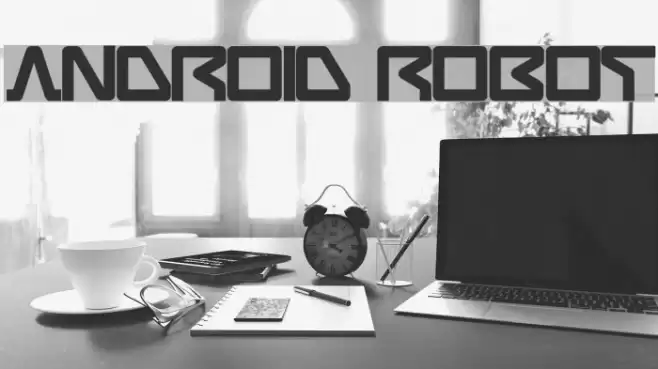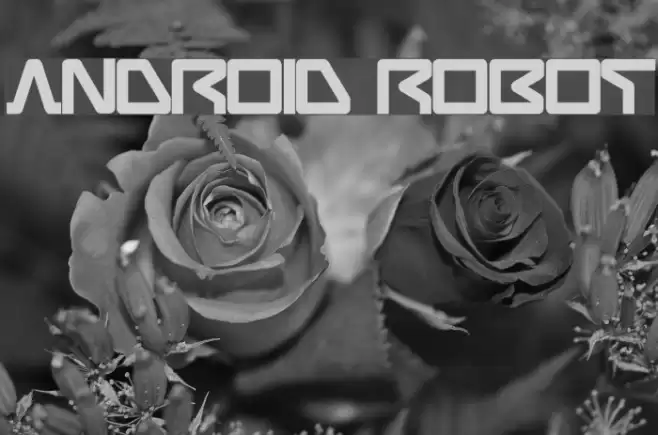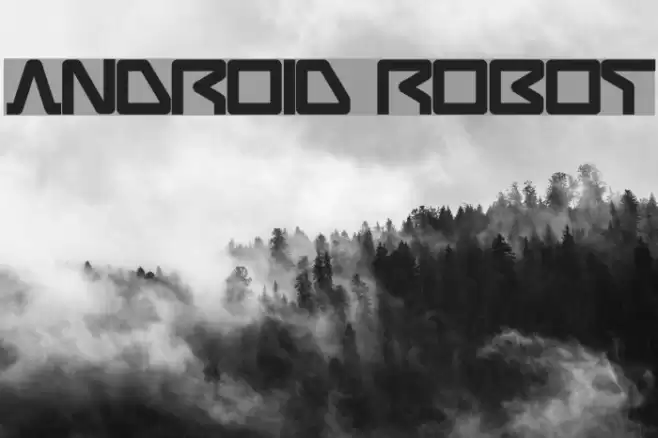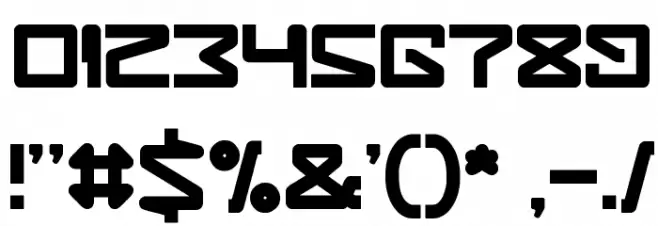
ANDROID ROBOT Font
ANDROID ROBOT Description
This font features a futuristic and robotic design, characterized by its bold and geometric structure. The characters are constructed with sharp angles and straight lines, giving it a mechanical and digital appearance. The uppercase and lowercase letters maintain a consistent style, with unique cuts and shapes that enhance its modern aesthetic. Numbers and special characters follow the same design principles, ensuring a cohesive look across all elements. The font's distinct style makes it ideal for projects that require a tech-savvy or sci-fi theme.
A bold, futuristic font with geometric and robotic elements from Uncategorized fonts.
- Proposed Projects: Ideal for technology branding, sci-fi movie posters, video game titles, and digital interfaces.
- Overall Style: Futuristic